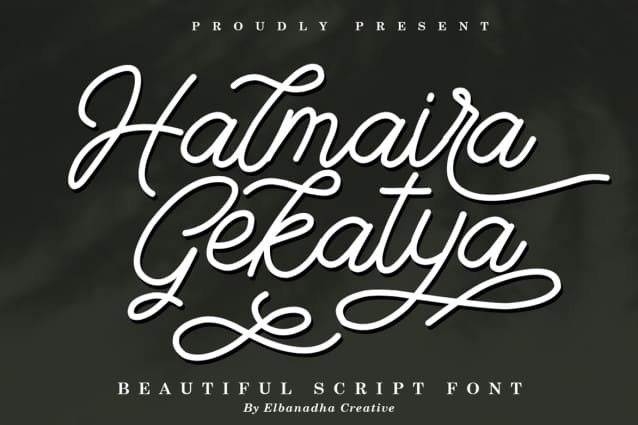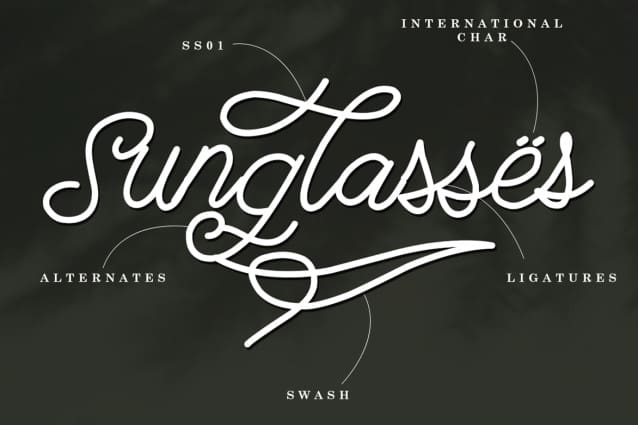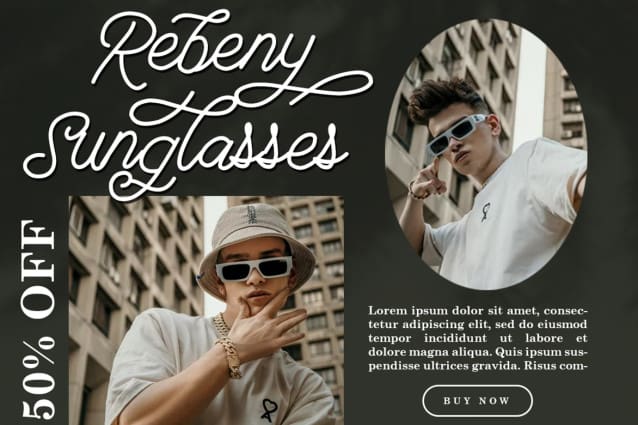
Halmaira Gekatya Font
HALMAIRA GEKATYA FONT| BEAUTIFUL SCRIPT FONT, from Elbanadha Creative, suitable for any projects such as: logos, branding projects, homeware designs, product packaging, mugs, quotes, posters, shopping bags, t-shirts, book covers, name card, invitation cards, greeting cards, label, photography, watermark, special events, and all your other lovely projects that need a beautiful taste.